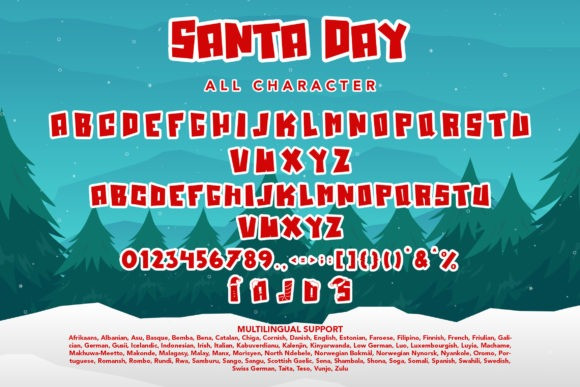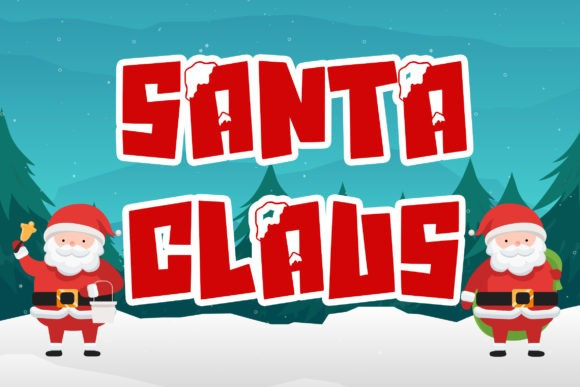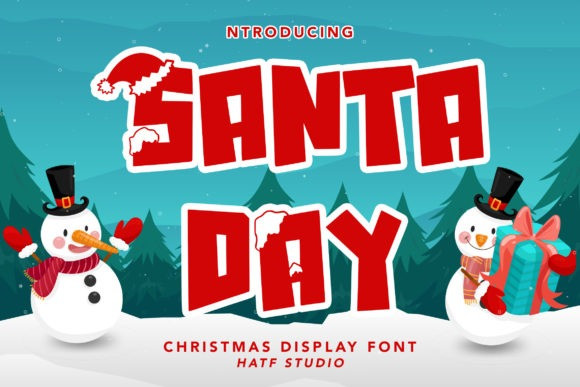
Santa Day Font
Santa Day Display Font is a distinctive and festive-looking display font, perfect for any crafty project that needs to stand out! Use it for logos, branding, marketing materials, advertising, storybooks, or anything else.